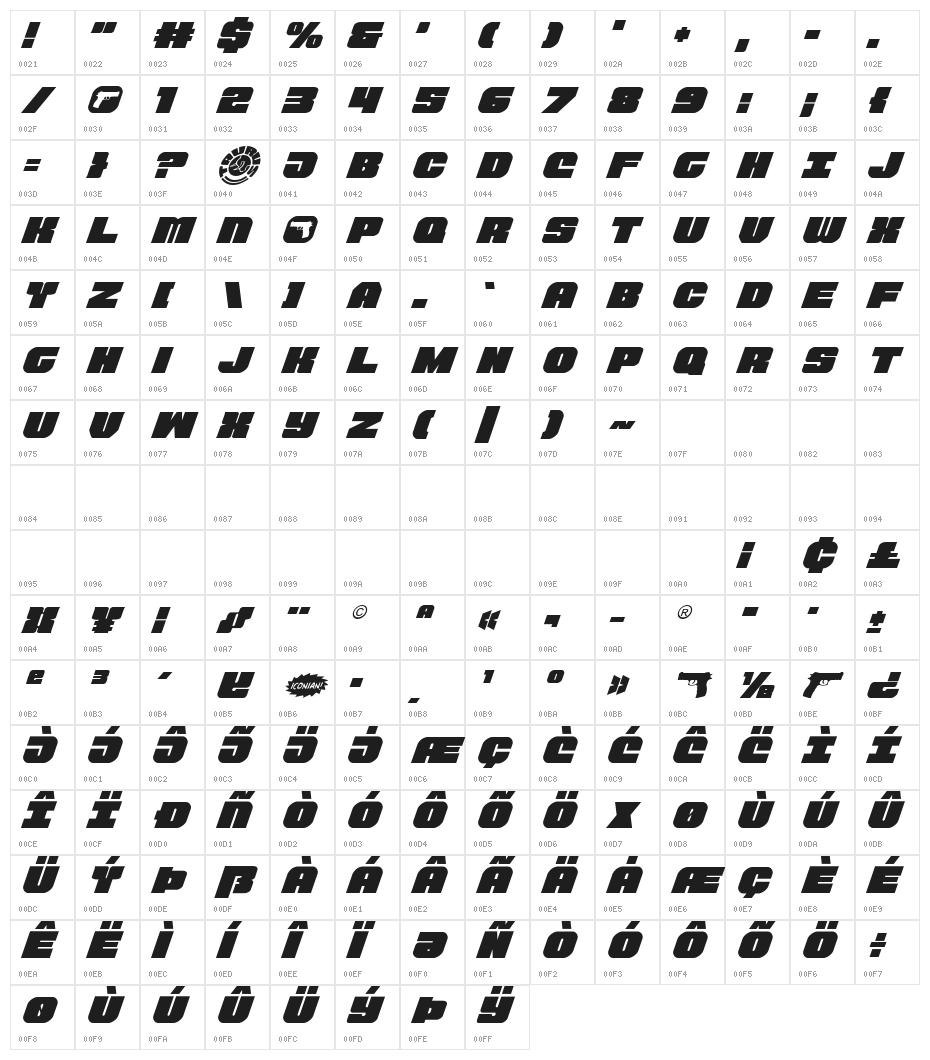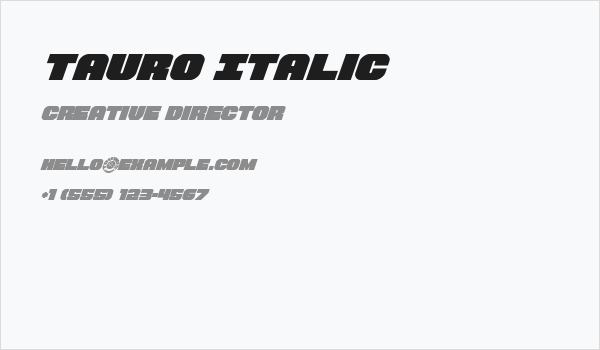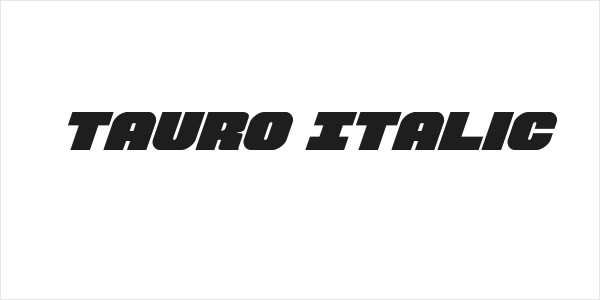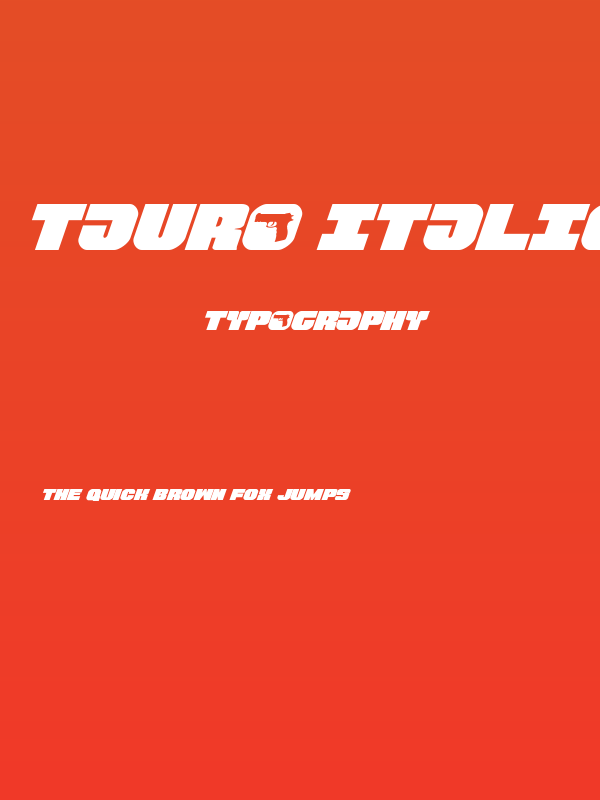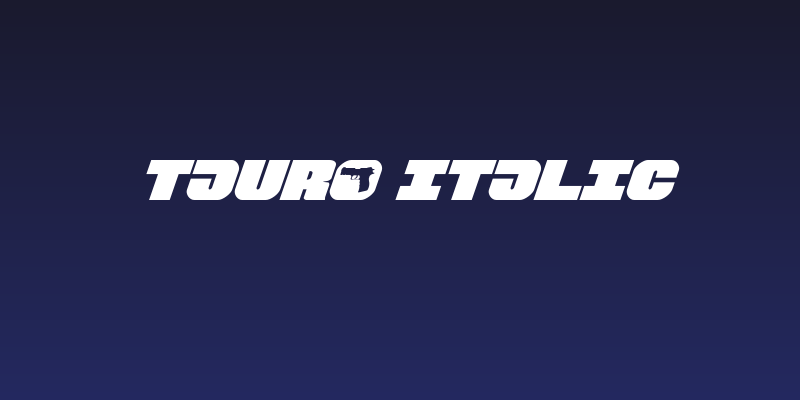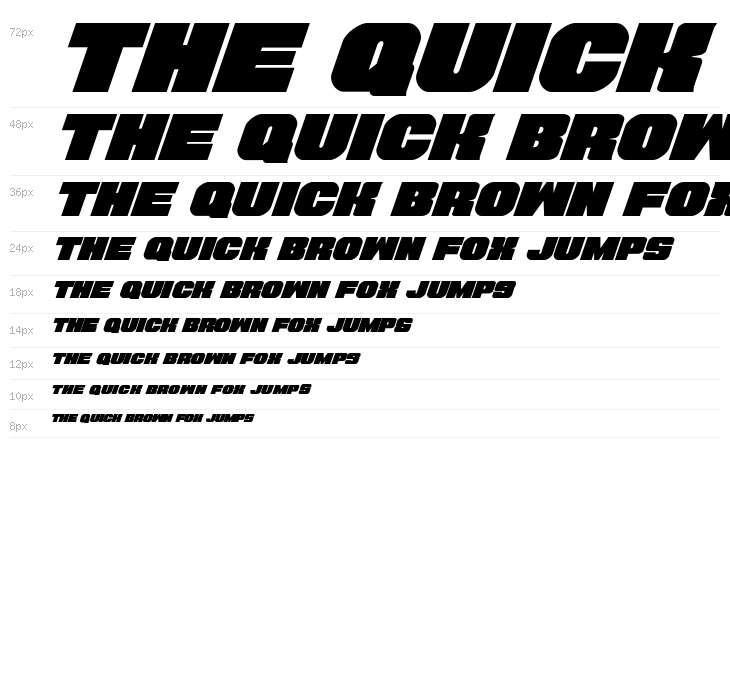
Tauro Italic Font
Tauro Italic Description
This font features a bold and dynamic style with a strong presence. The characters are designed with a forward-leaning italic slant, giving them a sense of motion and energy. The strokes are thick and consistent, creating a robust and impactful appearance. The geometric shapes and sharp angles contribute to a modern and futuristic aesthetic. The font includes uppercase letters, numbers, and a selection of special characters, all maintaining the same bold and italicized style. The overall design is suitable for projects that require a strong visual impact and a contemporary feel.
| Proposed Projects | Ideal for sports branding, action movie posters, video game titles, and dynamic advertising campaigns. |